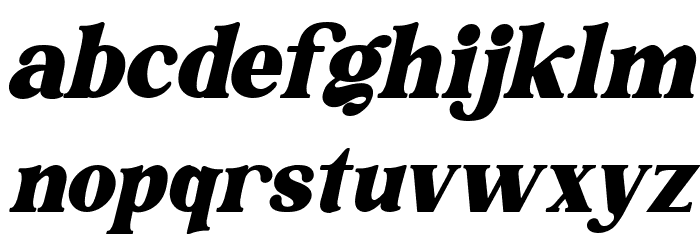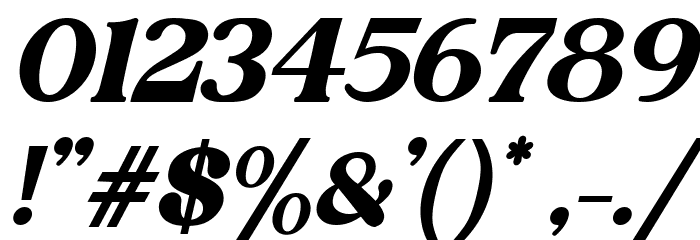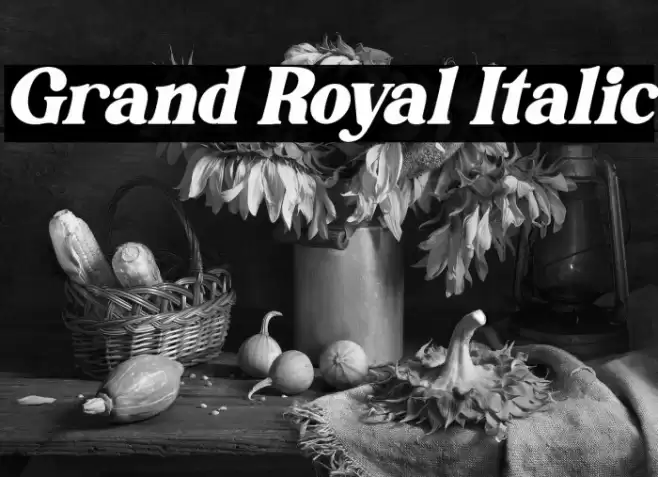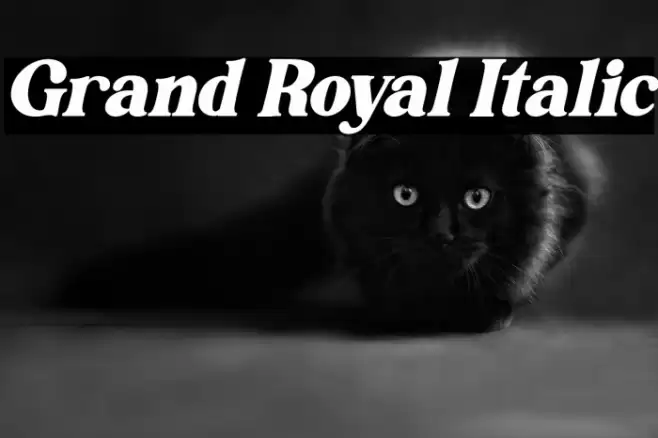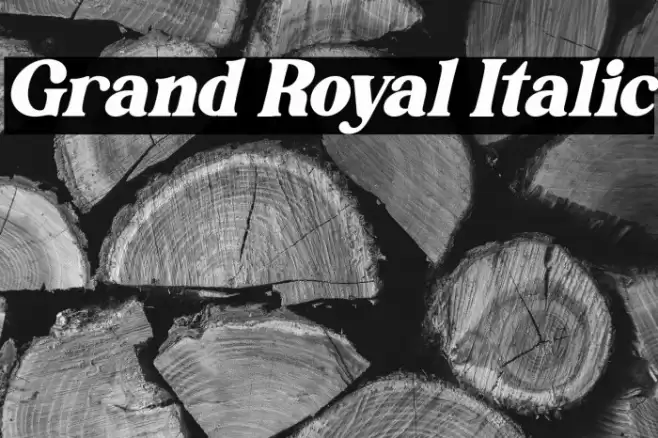
Grand Royal Italic Font
This font exudes elegance and sophistication with its italicized, flowing style. The characters are bold and slightly condensed, giving a sense of grandeur and authority. The uppercase letters are particularly striking, with a pronounced slant that adds dynamism and movement. The lowercase letters maintain a consistent style, complementing the uppercase with their own flair. The numerals are clear and bold, ensuring readability. Special characters are crafted with the same attention to detail, making them suitable for a variety of uses. The overall design is both classic and modern, making it versatile for numerous applications.
An elegant and bold italic font with a classic yet modern appeal.
- Proposed Projects: Ideal for luxury branding, high-end product packaging, elegant invitations, and sophisticated editorial design.
- Category: Serif
- Overall Style: Classic
- Use Case: Headlines, Logos, Invitations